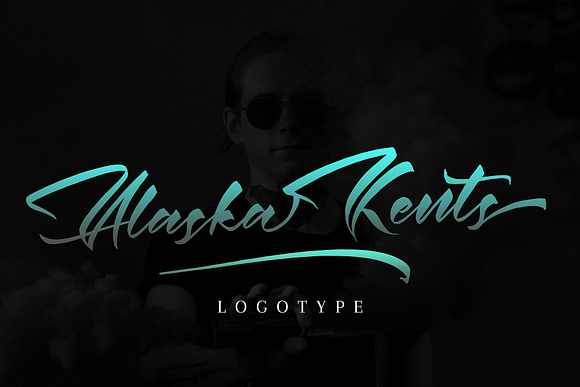
Alaska Kents Black Friday Font
Alaska Kents Black Friday Font is perfect for mega sale events, winter shopping promotions, holiday retail campaigns, discount store advertising, cold weather sale materials, seasonal clearance graphics, frozen price promotions, arctic-themed sales, winter wonderland shopping events, and extreme discount announcements.
What makes Alaska Kents Black Friday Font so exciting is its incredible ability to combine the raw power of Alaskan wilderness with the shopping frenzy of Black Friday through bold letterforms that seem to capture both the chill of arctic winds and the heat of incredible deals. This distinctive typeface merges rugged outdoor aesthetics with promotional urgency, featuring characters that radiate both natural strength and commercial excitement. The font's unique design elements perfectly balance wilderness authenticity with retail dynamism, creating an unforgettable tool that communicates extreme value, seasonal excitement, and unbeatable deals, making it essential for retailers who want their promotions to stand out like towering glaciers in the competitive shopping landscape.
Alaska Kents Black Friday Font comes in multiple font families including Regular, Bold, Extra Bold, Frozen, Arctic, Condensed, Extended, and Blizzard variations. Each family member maintains the core wilderness-meets-retail characteristics while offering different intensity levels and stylistic approaches to suit various seasonal promotional design requirements.
The Alaska Kents Black Friday Font Free Download provides retailers with an extraordinary resource for creating memorable promotional materials that capture both seasonal authenticity and shopping excitement in one powerful visual statement. This remarkable typeface distinguishes itself through its unique ability to communicate themes of extreme savings, seasonal adventure, and cold-weather value hunting. Whether you're developing winter sale campaigns, creating arctic-themed shopping events, or designing extreme discount promotions, this font ensures your message cuts through the competition like a sled dog team racing across frozen terrain.
The wilderness-retail fusion in Alaska Kents Black Friday Font makes it particularly effective for outdoor retailers, seasonal businesses, and winter sports companies where combining natural authenticity with promotional urgency creates unique marketing advantages during peak shopping seasons. Its powerful letterforms work exceptionally well in both digital campaigns and physical storefront displays, where the distinctive character can create maximum brand differentiation and memorable shopping experiences.
Seasonal marketing professionals recognize how Alaska Kents Black Friday Font transforms ordinary sale announcements into epic shopping adventures that combine the thrill of wilderness exploration with the excitement of incredible deals. The typeface's adventurous character set includes special winter symbols, outdoor elements, and extreme discount indicators that enhance the overall arctic shopping atmosphere of any seasonal campaign.
For creative professionals serving outdoor retail, winter sports brands, and seasonal shopping campaigns, Alaska Kents Black Friday Font serves as the perfect foundation for creating unforgettable promotional identities that capture the essential qualities of wilderness adventure, extreme value, and seasonal excitement that define successful retail experiences in competitive holiday markets.